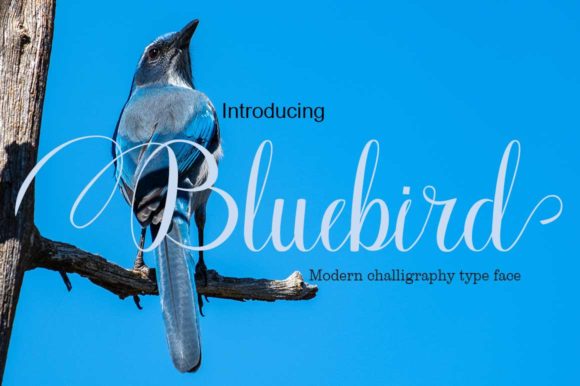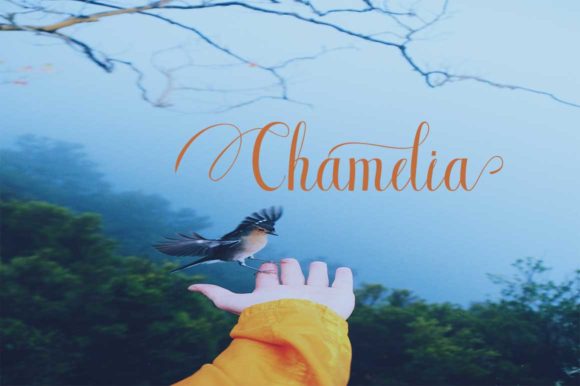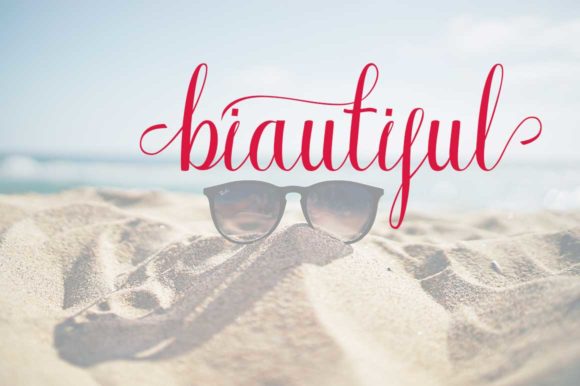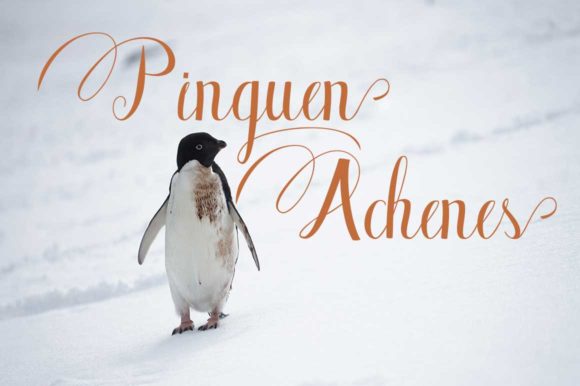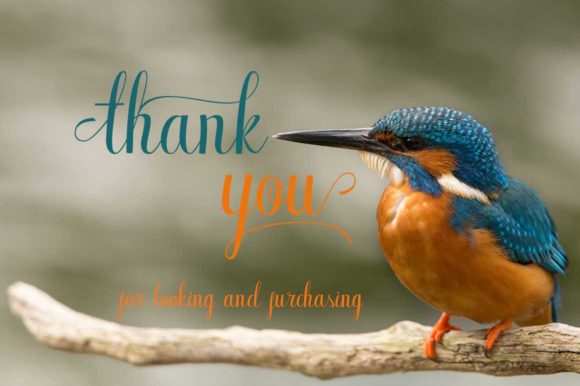
HomeScript FontsBluebird Font Script Fonts Bluebird Font FacebookXPinterestWhatsApp Bluebird Font Poster 2 Bluebird Font Poster 3 Bluebird Font Poster 4 Bluebird Font Poster 5 About Bluebird Font Bluebird is a delicate and stunning script with unique swashes. Fall in love with its romantic feel! DOWNLOAD NOW People also explored Birdwood; Condensed Slab Serif Font German Chocolate Font New Ancle Oo Font Oakland Font Have Fun Sunday Duo Font Baterfly Font Quincy Font Gashina Fathing Font 271 0 TagsBluebird Font Previous articleDellove FontNext articleRaesand Font LEAVE A REPLY Cancel reply Comment: Please enter your comment! Name:* Please enter your name here Email:* You have entered an incorrect email address! Please enter your email address here Website: Save my name, email, and website in this browser for the next time I comment. Personal Use Free Jelly Fish Personal Use Free Read more about this font Amillina Monogram Personal Use Free Read more about this font Mike Ferrari 16017 Personal Use Free Read more about this font Choco Shake Font Personal Use Free Read more about this font BLOG Where to Buy American Fonts Online in 2024 Where to Buy American Fonts Online: The Ultimate Guide for 2024 Looking for the perfect American font to elevate your design projects? You're in the... Top 7 Google Fonts Alternatives for Faster and Privacy-Friendly Web Design (2025) Fonts That Capture the Spirit of New York City Free vs Paid Fonts: Why Investing in Premium Fonts Is Worth It